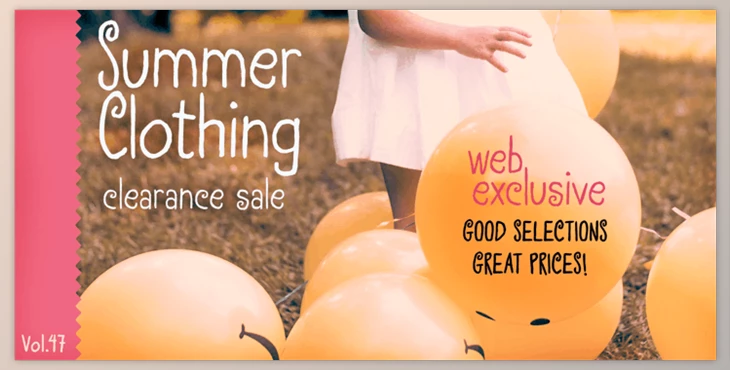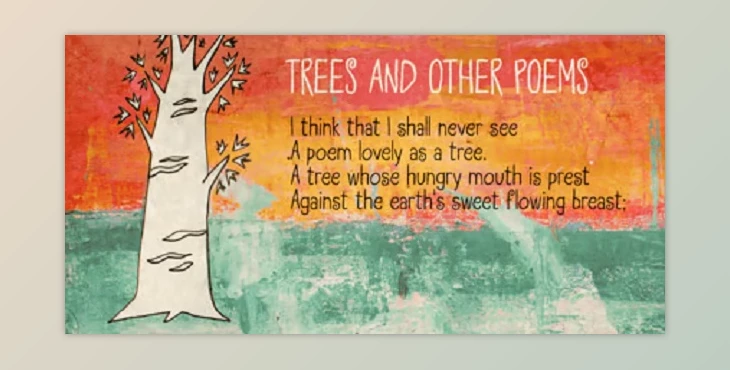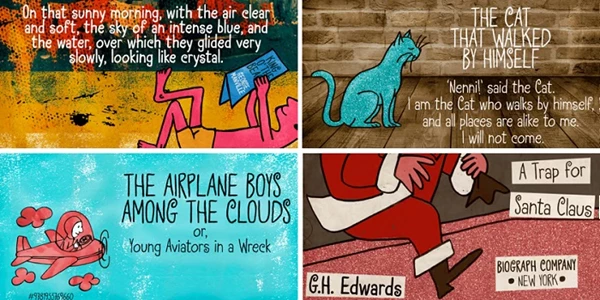
Transmogrified Font Family – 2 Fonts presents a custom sans serif font originally designed for a specific client project.
Featuring elegant swirls at the top and bottom, this font strikes a balance between casual and sophisticated styles.
How does the font strike a balance between casual and sophisticated styles by having subtle turns at the top and bottom?
Derived from the Transmogrifier font, it incorporates uppercase glyphs with added lowercase characters and a dynamic cut for enhanced versatility.
"Transmogrified Font Family – 2 Fonts" Samples: